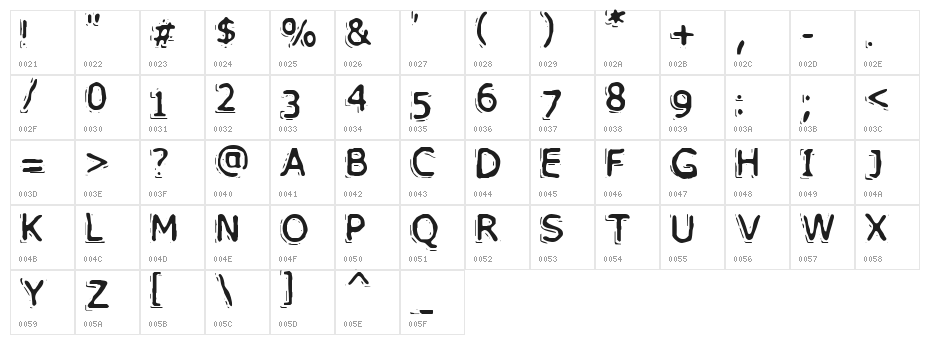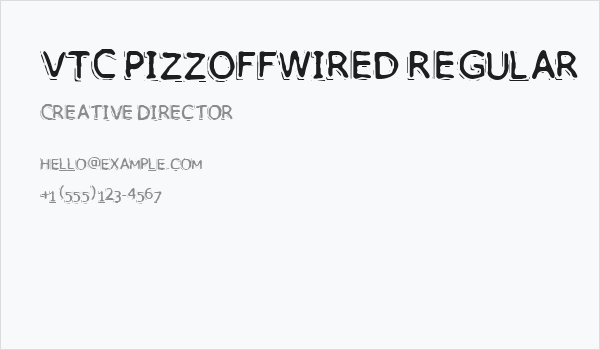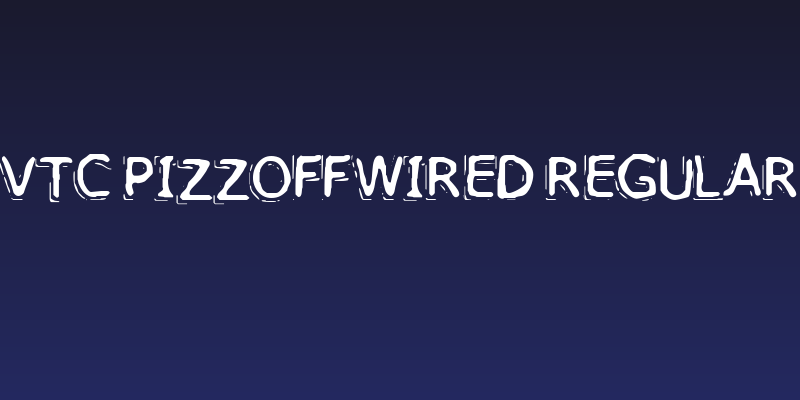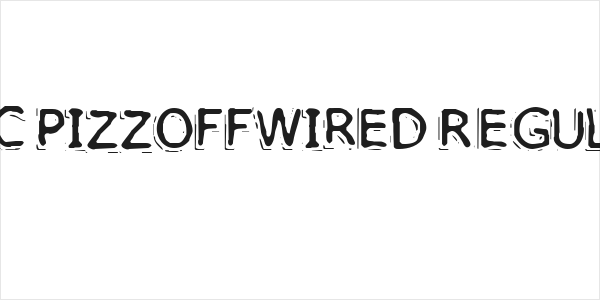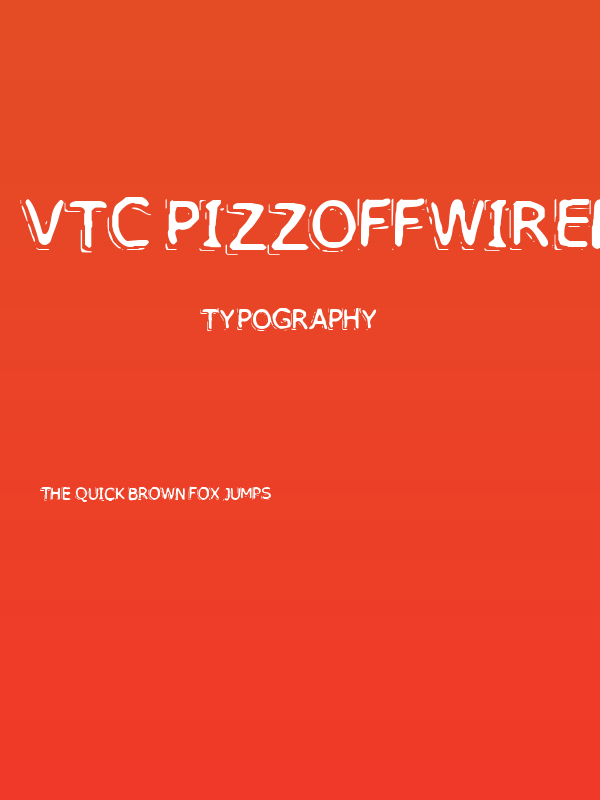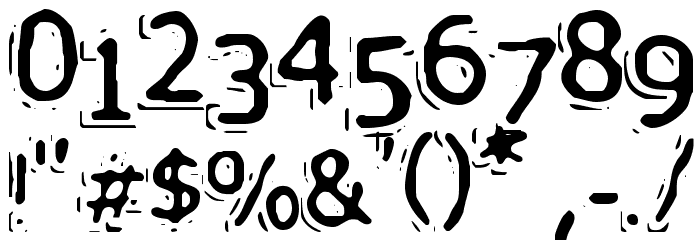
VTC PizzOffWired Regular Font
VTC PizzOffWired Regular Description
This font features a bold and playful design with a hand-drawn, wired effect. The characters have a rough, sketch-like appearance, giving them a unique and artistic flair. The uppercase and lowercase letters maintain a consistent style, with irregular edges and a slightly distressed look. Numbers and special characters follow the same design principles, ensuring a cohesive appearance across all glyphs. The font's distinctive style makes it stand out, ideal for creative projects that require a touch of whimsy and originality.
| Proposed Projects | Ideal for posters, album covers, comic books, and creative branding projects. |